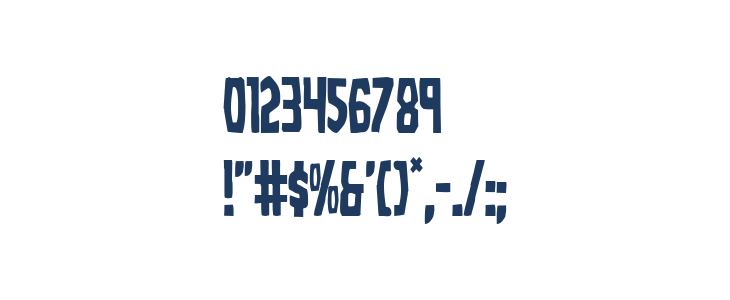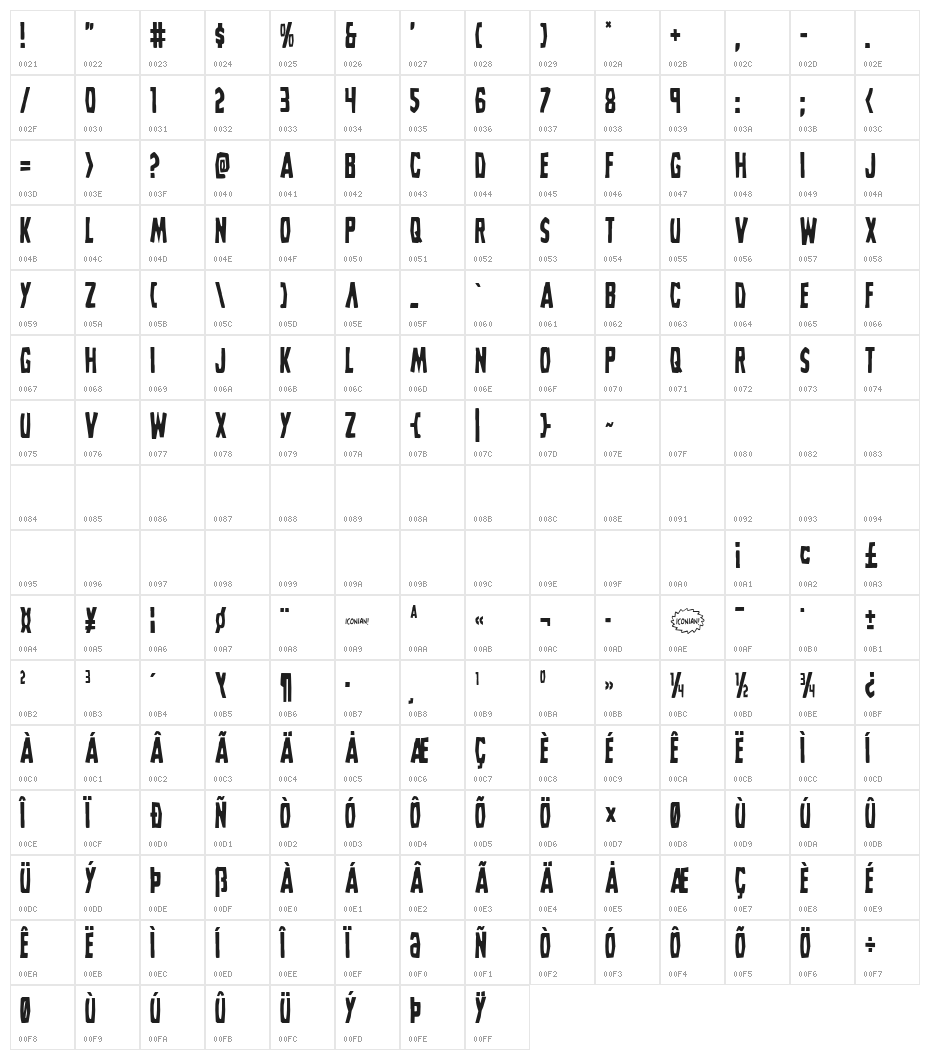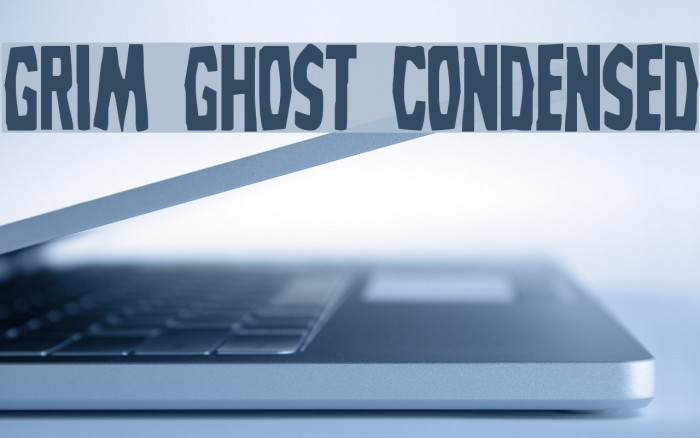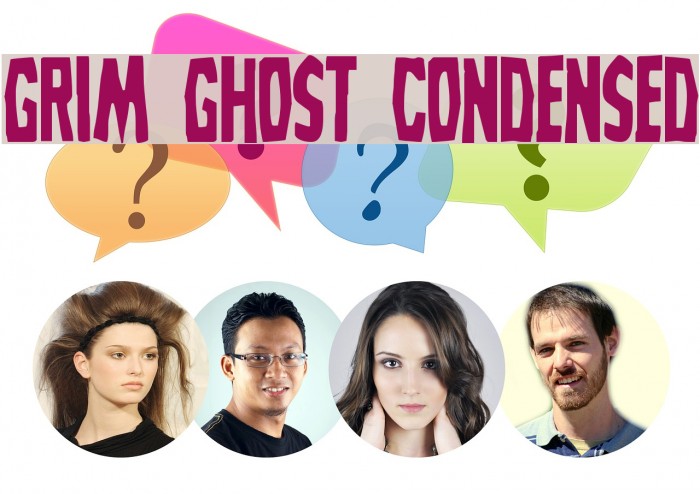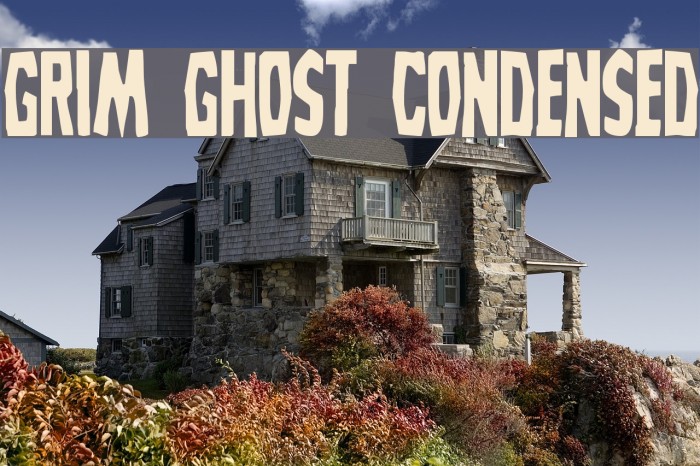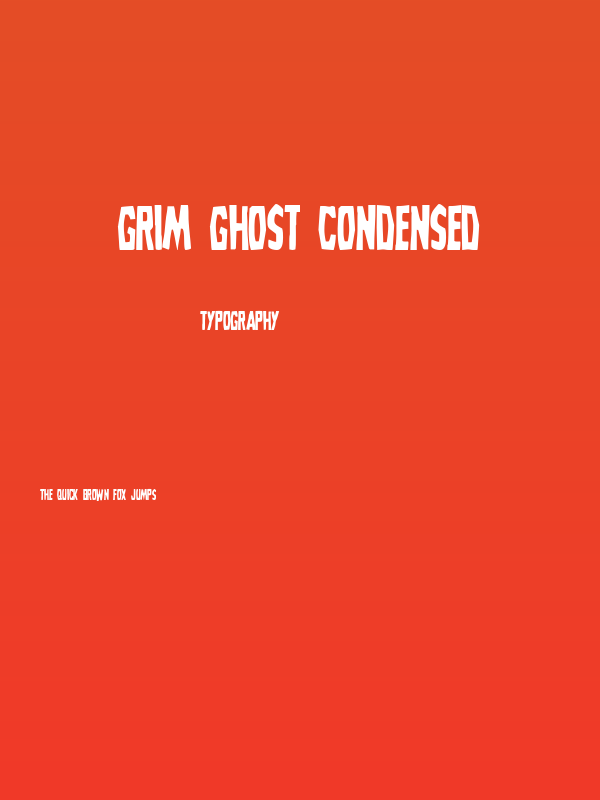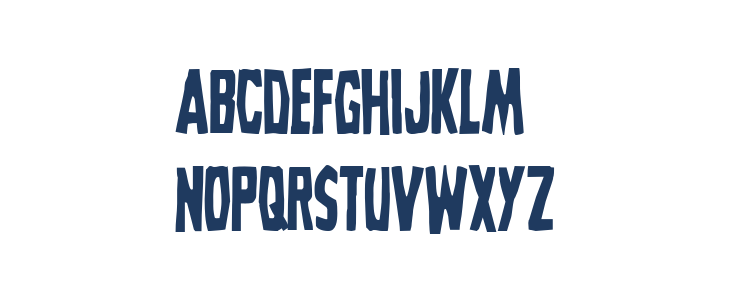
Grim Ghost Condensed Font
Grim Ghost Condensed Description
This font features a bold and condensed style with a slightly irregular and hand-drawn appearance. The characters are tall and narrow, creating a strong visual impact. The strokes are thick and uneven, giving it a rugged and edgy feel. The uppercase and lowercase letters maintain a consistent height, while the numbers and special characters complement the overall design. This font is ideal for projects that require a distinctive and bold statement, such as posters, headlines, or branding materials.